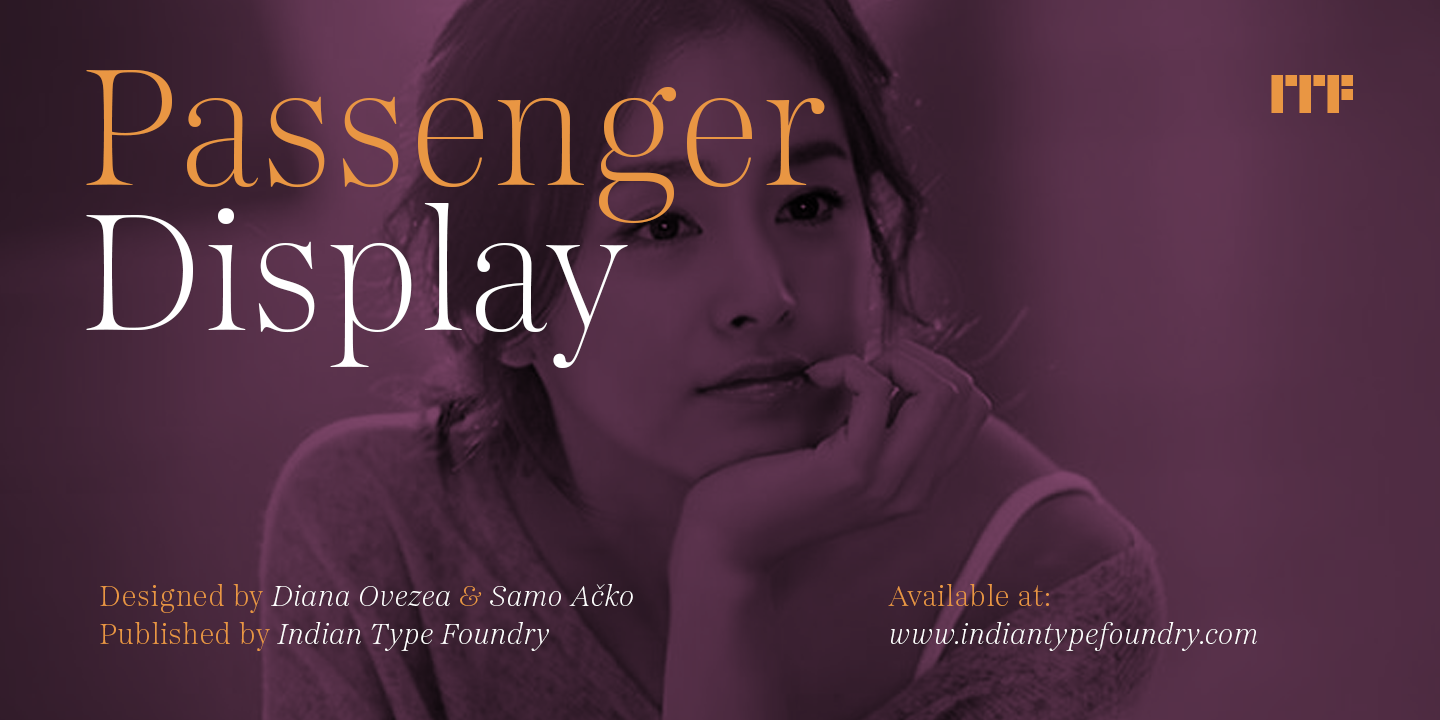
Passenger Display Font is perfect for transportation company branding, airline terminal signage, train station displays, travel agency marketing, airport wayfinding systems, cruise line promotions, public transit graphics, journey-themed designs, navigation app interfaces, travel blog headers, and any project that requires clear directional character with transportation sophistication.
What makes Passenger Display Font exciting is its exceptional ability to guide and inform travelers through clean, highly legible letterforms that embody the efficiency and reliability of modern transportation systems. This practical typeface features optimized proportions with excellent readability that ensure clear communication across all travel environments and viewing distances. The font's passenger-focused character adds instant transportation credibility and wayfinding clarity to any design, making it perfect for brands facilitating travel experiences and passenger journeys.
Passenger Display Font comes in multiple font families including Regular, Bold, Light, Condensed, Extended, and Transit variations, offering designers comprehensive options to create navigational compositions and achieve the perfect transportation aesthetic for travel-focused design projects.
Whether you're developing transportation brand identity, creating wayfinding system materials, or designing travel experience campaigns, Passenger Display Font Free Download provides the ideal solution for projects demanding clear passenger communication and transportation efficiency. This reliable typeface excels in both digital and physical signage applications where navigational presence is essential, ensuring your designs communicate travel clarity and passenger convenience. The functional character and transportation styling of Passenger Display Font make it an indispensable tool for designers who prioritize travel usability, passenger experience, and transportation system clarity in their typographic selections.